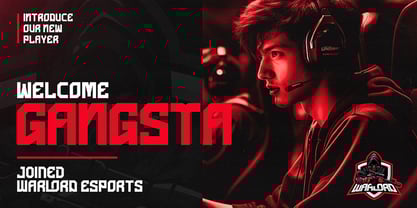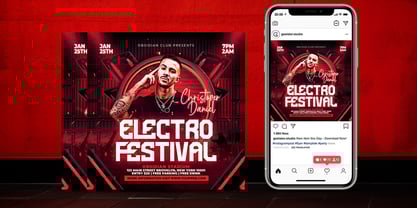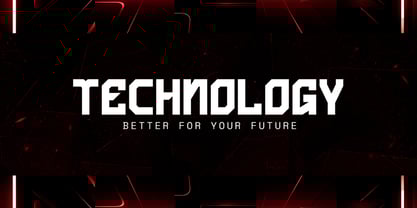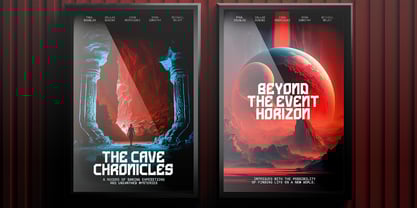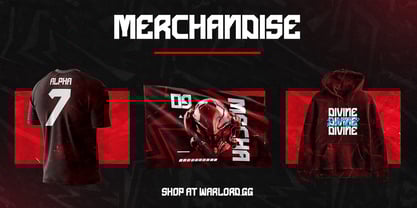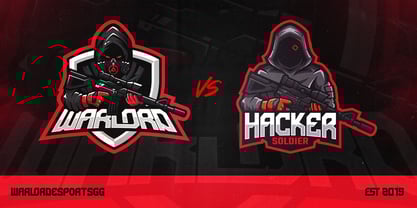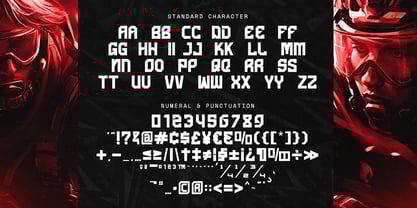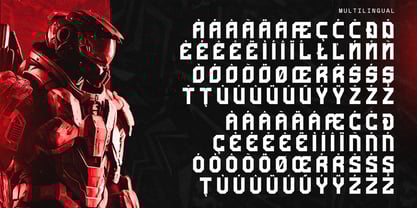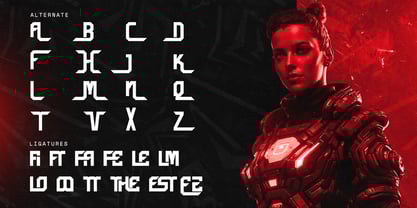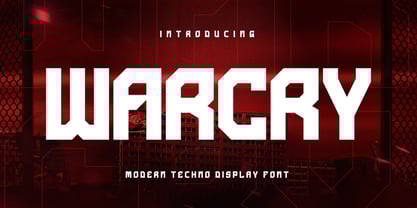
Warcry
by Geelator Studio
The Warcry Font Family was designed by Gilang Tito Dharmawan and published by Geelator Studio. Warcry contains 1 styles. More about this family
Elevate your brand identity with a font that embodies the energy and innovation of the digital age.
This Font can be used for any variety of purposes, such as: Logo, E-sports logo, Branding, Headline, Games, Magazine, Flyer, T-shirts, and any project that needs a high-tech edge.
Forge a new identity for your brand with a font that's more than just a style—it's a vision. Inspired by the dynamic, ever-evolving landscape of technology and innovation, this typeface captures a sense of forward momentum and cutting-edge design. Its sharp lines and precise curves are engineered to convey confidence and a readiness for what's next.